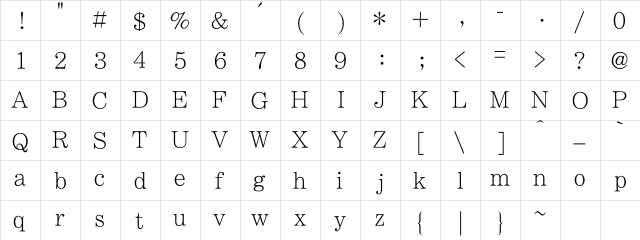
LiSong Pro Light
Design Context for LiSong Pro Typeface
LiSong Pro takes a measured approach to typography — its balanced proportions and neutral character make it a reliable workhorse for both digital and print work. Its slender proportions lend an understated elegance to any composition.